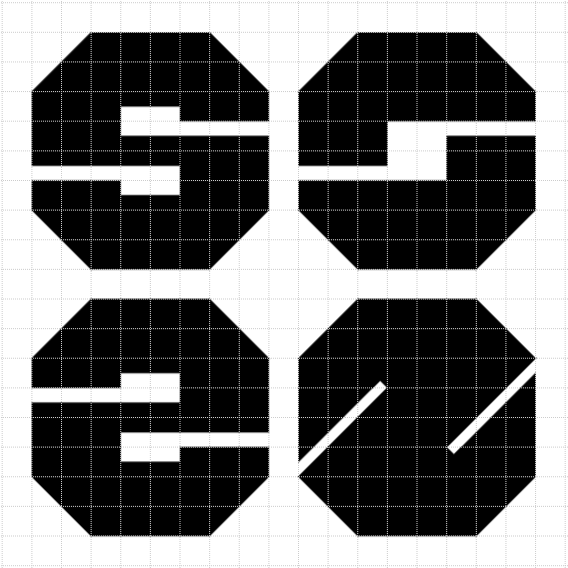
SAMPLE!!!!!
why is there no z nor numbers?
I am working on the numbers, and i already added the z, just after i made the sample
Nice and impactful.
Here are some possible alternate directions for |s|z|. For |z| there could be more if you are willing to extend past the octagon (like it already happens with other letters).
also, I would swap |u| and |v| (so that |u| has the stem to the right).
P.S.: lowercase |u|v| seem to be still in the old place.
I did swap the "u" and the "v", it's just reeeeeeeeeally hard to notice!
You use this for your logo, I can spot the difference